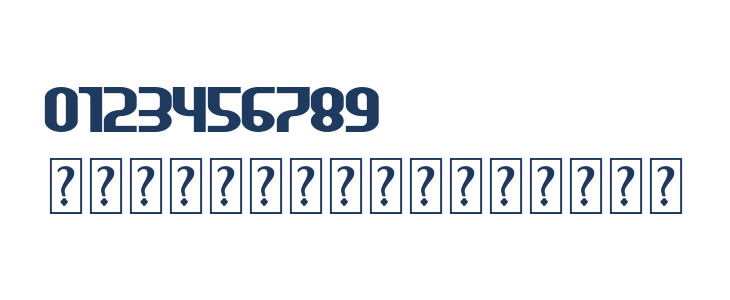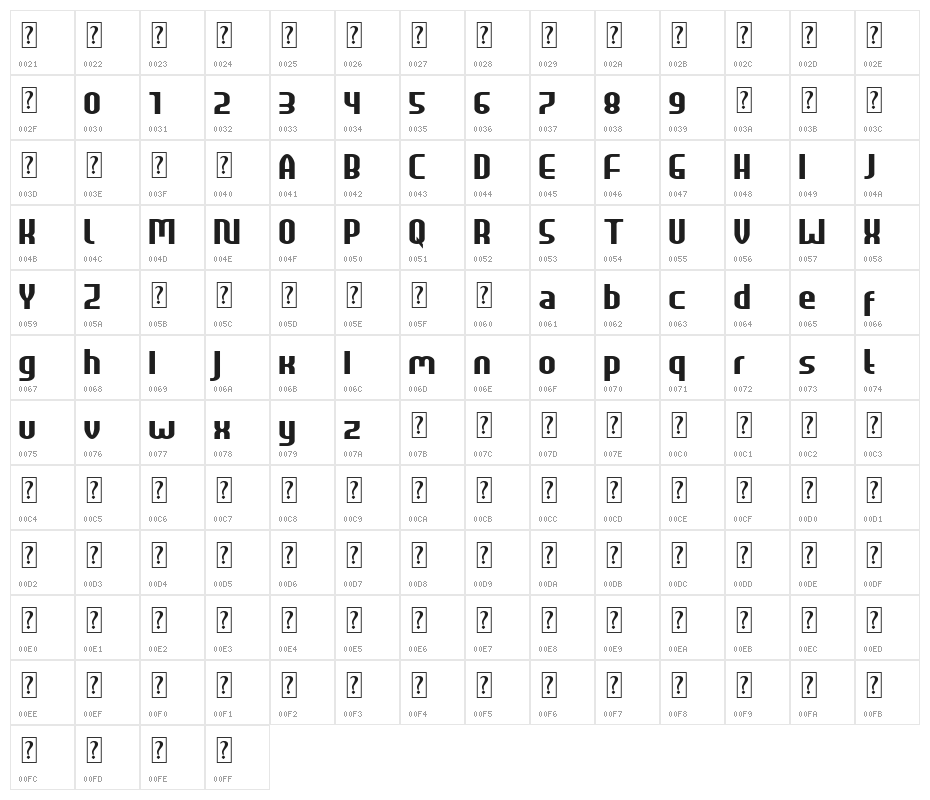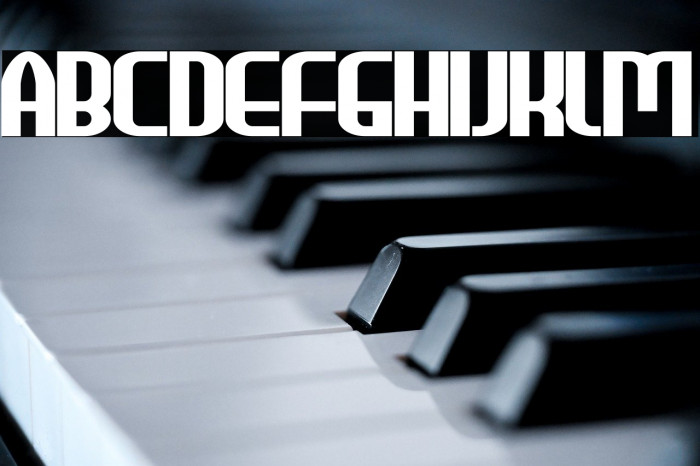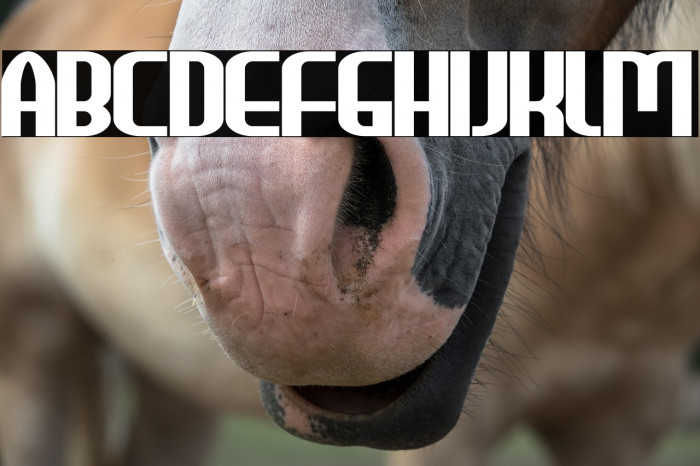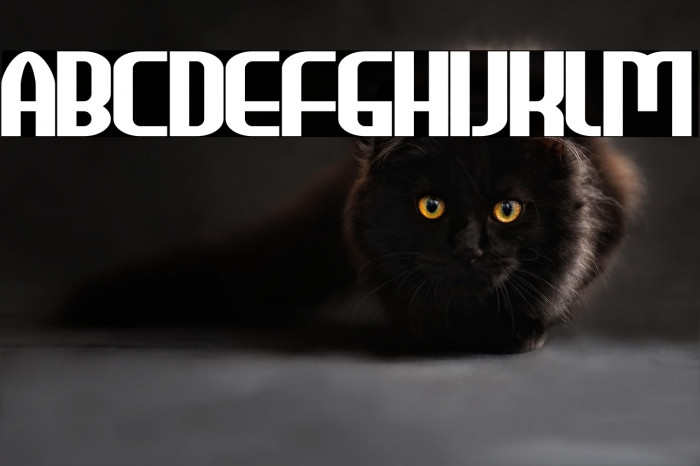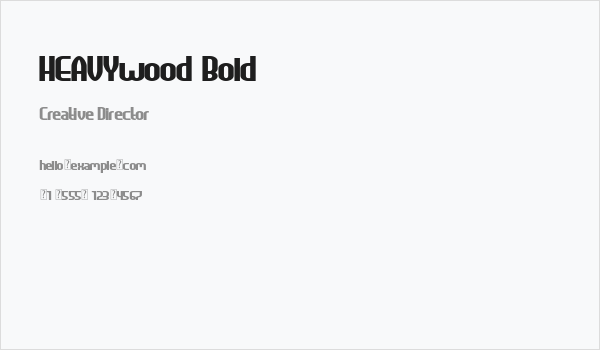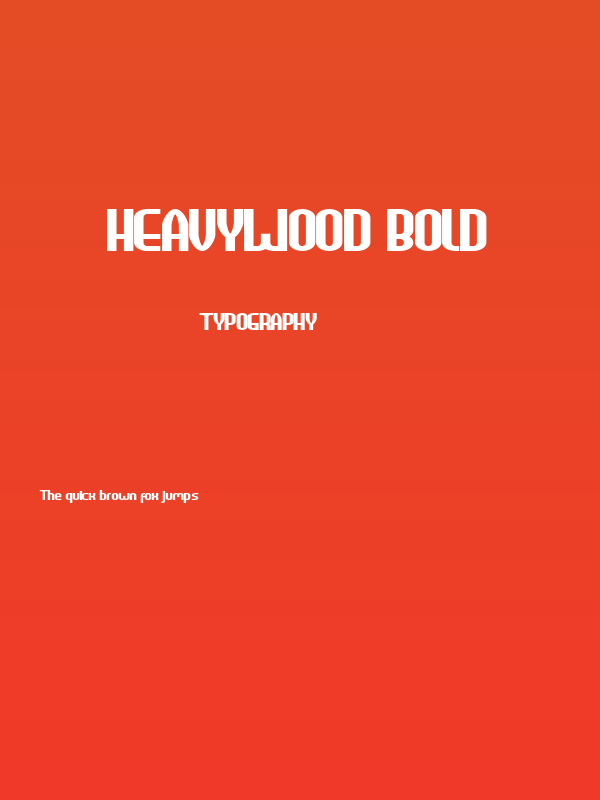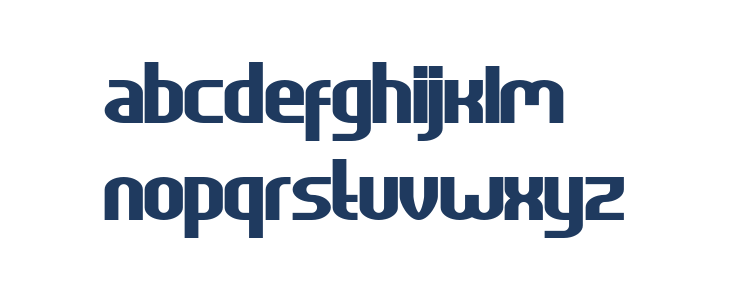
HEAVYwood Bold Font
HEAVYwood Bold Description
This font features a bold and striking design with a modern, geometric aesthetic. The characters are constructed with thick, uniform strokes, giving them a strong presence. The uppercase letters are particularly angular, with sharp corners and straight lines, while the lowercase letters maintain a similar style but with slightly softer edges. The numbers are consistent with the overall design, offering a cohesive look across all characters. The font's boldness makes it ideal for attention-grabbing headlines and impactful designs. However, the lack of special characters limits its versatility for certain projects.